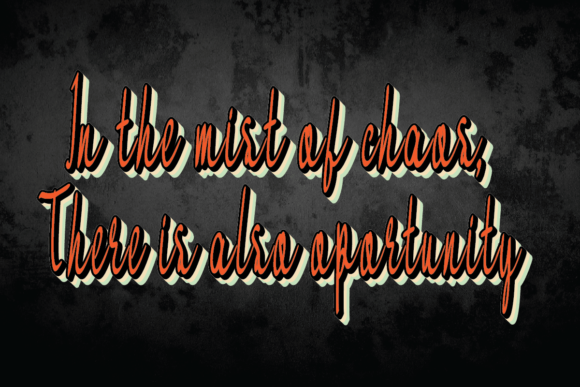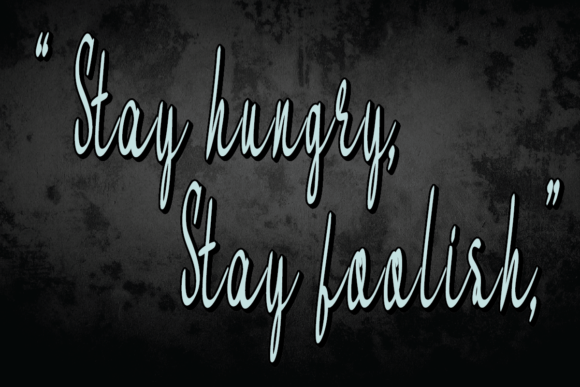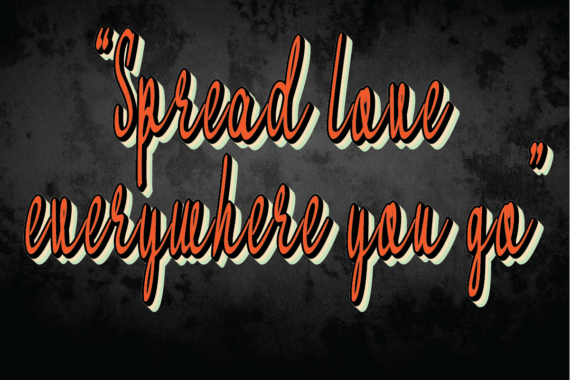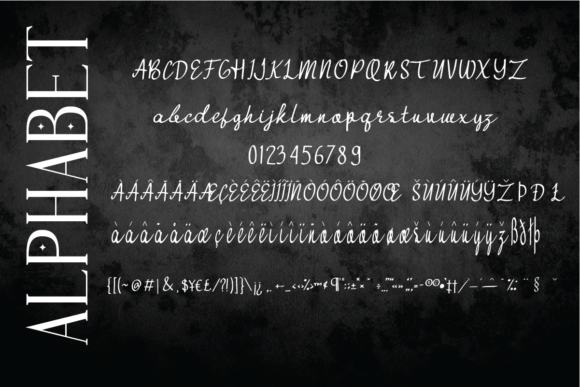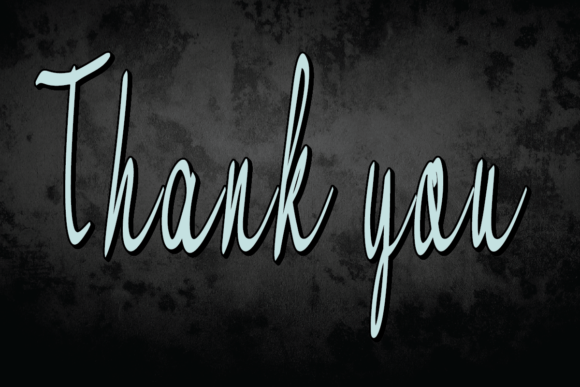
Introducing Continuous Roll Font: Elevate Your Designs with a Natural, Handwritten Touch
In the world of typography, fonts play a crucial role in conveying the tone and personality of a design. For crafters, designers, and artists, finding the right font can make all the difference in bringing their work to life. This is where Continuous Roll Font comes in – a beautiful, handwritten script font designed to add a touch of natural elegance to your creations.
The Story Behind Continuous Roll Font
Continuous Roll Font was deliberately crafted to be legible, natural, and simple. The creator’s goal was to produce a font that would make a natural impression when used on displays, making it perfect for a wide range of applications. Whether you’re working on a craft project, designing a logo, or creating a stunning display, Continuous Roll Font is the perfect addition to your typography collection.
Key Features of Continuous Roll Font
• Handwritten Script: Continuous Roll Font boasts a beautiful, handwritten script that adds a personal touch to your designs.
• Legible and Natural: The font’s design prioritizes legibility and natural flow, making it easy to read and understand.
• Simple yet Elegant: The simplicity of Continuous Roll Font is what makes it stand out – it’s elegant, yet approachable and friendly.
• Versatile: This font is suitable for a wide range of applications, including crafts, displays, clothing, and more.
Continuous Roll Font is a versatile addition to any designer’s or crafter’s toolkit. Its natural, handwritten aesthetic makes it perfect for:
• Crafting: Use Continuous Roll Font to add a personal touch to your craft projects, such as handmade cards, gift tags, or DIY decorations.
• Display Design: Create stunning displays with Continuous Roll Font as the centerpiece – it’s perfect for headings, titles, and quotes.
• Clothing and Apparel: Add a touch of elegance to your clothing and apparel designs with Continuous Roll Font – it’s perfect for labels, tags, or promotional materials.
Why Choose Continuous Roll Font?
With so many fonts available, why choose Continuous Roll Font? Here are just a few reasons:
• Unique Aesthetic: Continuous Roll Font offers a unique, handwritten aesthetic that’s hard to find in other fonts.
• Ease of Use: This font is incredibly easy to use, even for those without extensive design experience.
• High Versatility: Continuous Roll Font can be used in a wide range of applications, making it a valuable addition to your design toolkit.
In conclusion, Continuous Roll Font is a beautiful, handwritten script font that’s perfect for designers, crafters, and artists looking to add a touch of elegance to their work. Its legibility, natural flow, and simplicity make it an excellent choice for a wide range of applications. So why wait? Get Continuous Roll Font today and take your designs to the next level!